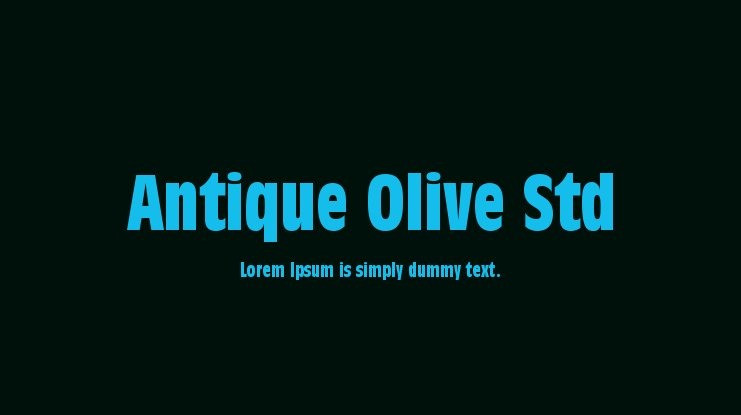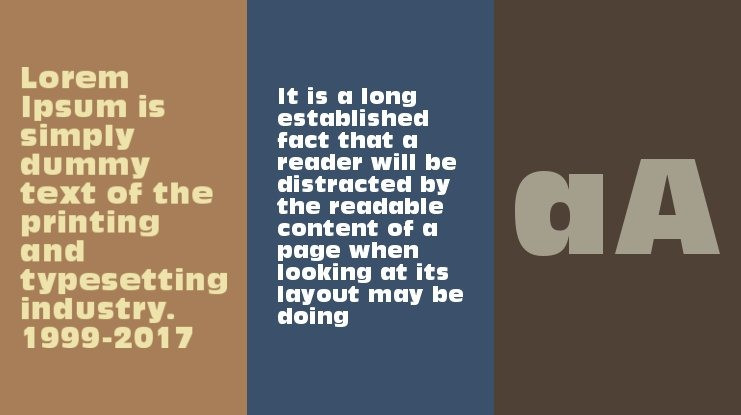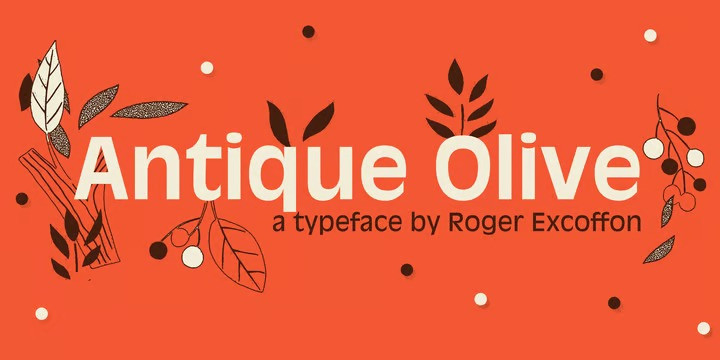
Antique Olive Font
Introducing Antique Olive Sans Serif Font Family. Original sanserif designed in 1962 for Fonderie Olive by the late Roger Excoffon. Excoffon achieves brilliant personal effects by calculated breaking of accepted design canons.